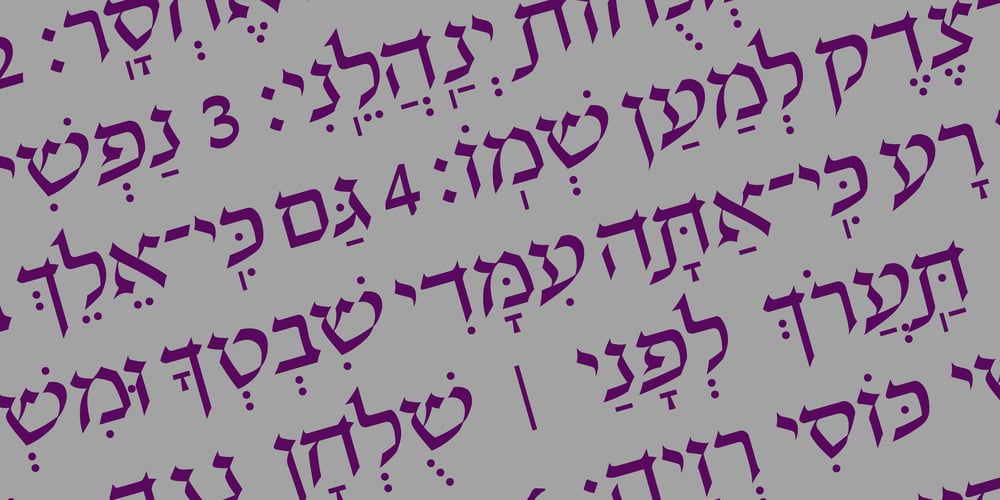
Hebrew Sefirot
Hebrew Sefirot font
Hebrew Sefirot Font Family was designed by Sami Artur Mandelbaum and published by Samtype. Hebrew Sefirot contains 1 styles and family package options. The beautiful and elegant typeface is excellent use in wedding invitations, art, posters, and small texts.